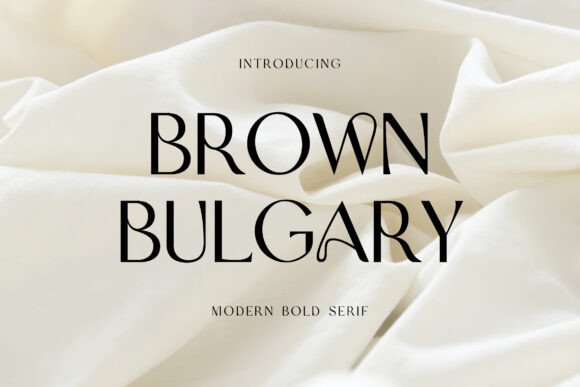
Brown Bulgary Font: Elevate Your Design with Elegance and Style
The world of typography is vast and diverse, offering a multitude of fonts to suit every design need. Among these, the Brown Bulgary Font and its bold counterpart, Brown Bulgary Bold Serif Font, stand out for their unique blend of modernity, elegance, and versatility. These fonts have become a go-to choice for designers looking to infuse their projects with a touch of class and sophistication.
The Essence of Brown Bulgary Font
Brown Bulgary Font is a modern display font that exudes beauty, classiness, elegance, and style. Its design is meticulously crafted to make it suitable for a wide array of projects. Whether you’re working on a signature, stationery, logo, wedding invitations, typography quotes, magazine or book covers, website headers, or branding materials, this font is an excellent choice. Its versatility is one of its most compelling features, allowing it to adapt seamlessly to various design contexts.
Brown Bulgary Bold Serif Font: A Statement of Elegance
The Brown Bulgary Bold Serif Font takes the elegance of its counterpart to the next level with its bold presence. It’s not just a font; it’s a statement. This font is perfect for designers who want to make a strong impact without compromising on style or sophistication. The bold serif design adds a layer of masculinity and femininity, making it incredibly versatile for fashion-related branding or editorial designs.
Unisex Appeal: Masculine and Feminine Qualities
One of the standout features of the Brown Bulgary Font family, including the Bold Serif version, is its unisex appeal. This font manages to display both masculine and feminine qualities, making it an ideal choice for fashion branding or editorial designs that aim to cater to a wide audience. The balance between softness and strength, elegance and assertiveness, allows designers to create works that are both appealing and effective across different demographics.
Applications of Brown Bulgary Font
The applications of Brown Bulgary Font and Brown Bulgary Bold Serif Font are vast. Here are some areas where these fonts truly shine:
- Signature and Stationery: Add a personal touch to letters, notes, and official documents.
- Logo Design: Create memorable and impactful logos that stand out.
- Wedding and Event Invitations: Bring elegance and sophistication to your invitations.
- Typography Quotes: Highlight quotes and phrases with a stylish and modern touch.
- Magazine and Book Covers: Capture the essence of your publication with a compelling font.
- Website Headers: Elevate your website’s design with headers that make a statement.
- Branding: Consistency in branding is key, and these fonts help in creating a uniform brand image.
Why Choose Brown Bulgary Font?
Choosing the right font for your project can be daunting, given the numerous options available. However, Brown Bulgary Font and Brown Bulgary Bold Serif Font offer several advantages:
- Versatility: Suitable for a wide range of projects.
- Elegance: Adds a touch of class and sophistication to any design.
- Readability: Despite its stylized nature, it maintains a high level of readability.
- Uniqueness: Stands out from more commonly used fonts, offering a fresh alternative.
Tips for Using Brown Bulgary Font Effectively
To maximize the impact of Brown Bulgary Font and Brown Bulgary Bold Serif Font in your designs, consider the following tips:
- Pairing: Experiment with font pairings to enhance the overall aesthetic of your project.
- Size and Weight: Play with different sizes and weights to create visual hierarchy.
- Color: Choose colors that complement the font and align with your brand’s palette.
- Context: Consider the context in which the font will be used to ensure it aligns with the message.
Brown Bulgary Font and Brown Bulgary Bold Serif Font are more than just fonts; they are tools that can elevate your design to new heights of elegance and style. Their versatility, combined with their unique blend of modernity and classic sophistication, makes them an excellent choice for a wide range of projects. Whether you’re a professional designer or someone looking to add a personal touch to your creations, these fonts are sure to inspire and enhance your work.